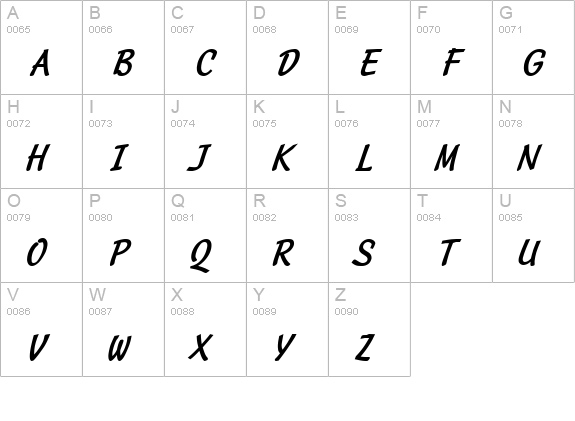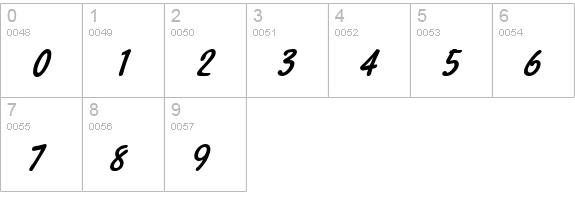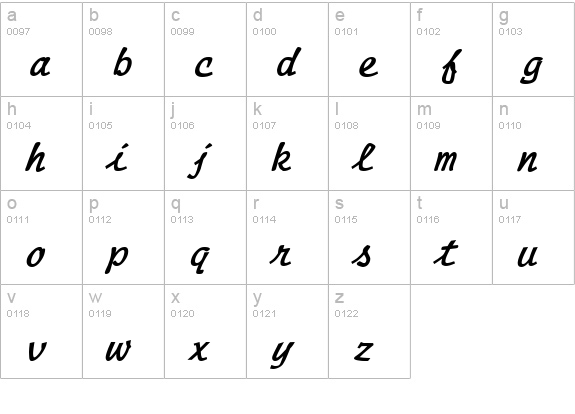
Introducing Manuscript BoldItalic, a stunning and versatile font that effortlessly combines elegance and boldness. This unique typeface is perfect for adding a touch of sophistication and creativity to any project. With its striking bold weight and delicate italic slant, Manuscript BoldItalic exudes a sense of confidence and flair. Its flowing curves and graceful lines lend an air of sophistication to any text, making it ideal for headings, titles, invitations, and more. What sets Manuscript BoldItalic apart is not just its captivating aesthetic, but also its accessibility. This font is freely available to download at FontsMarket.com, allowing designers, creatives, and enthusiasts alike to effortlessly incorporate its charm into their projects. Whether you're designing a wedding invitation, creating a logo, or simply want to add a touch of elegance to your personal blog, Manuscript BoldItalic is the perfect choice. Its versatility and timeless appeal make it suitable for a wide range of applications. So why wait? Head over to FontsMarket.com and download Manuscript BoldItalic today, and discover the freedom to create stunning and captivating designs. Let your creativity soar with this exquisite font, and bring your projects to life with a touch of sophistication and style.